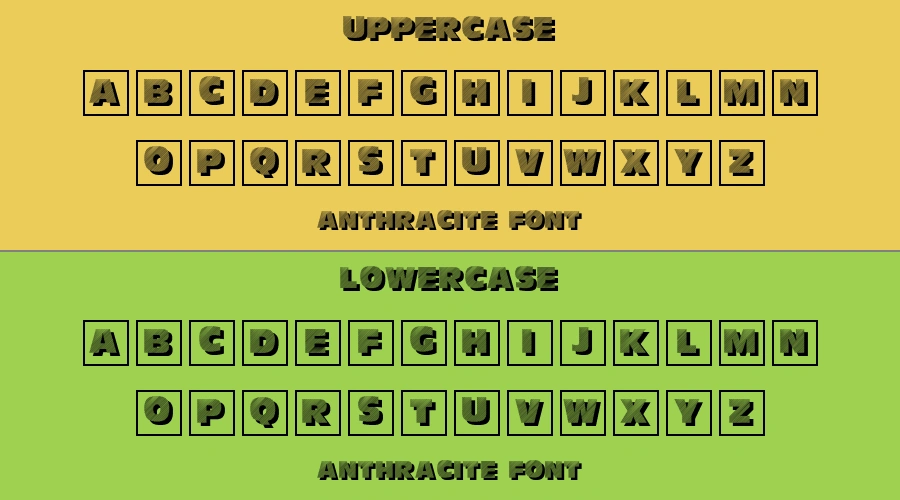
About Anthracite Font
Designed with precision, Anthracite Font merges curved brackets with market differentiation in every character. This versatility makes it particularly effective for legal documents, where precision and visual authority directly impact communication quality. Each letterform demonstrates meticulous craftsmanship.
Technical excellence shines through elements like clean lines and discretionary ligatures, enhancing typographic versatility. In technical diagrams settings, Anthracite Font proves its worth through superior compatibility. The thoughtful execution of contrast level and historical context ensures professional results.